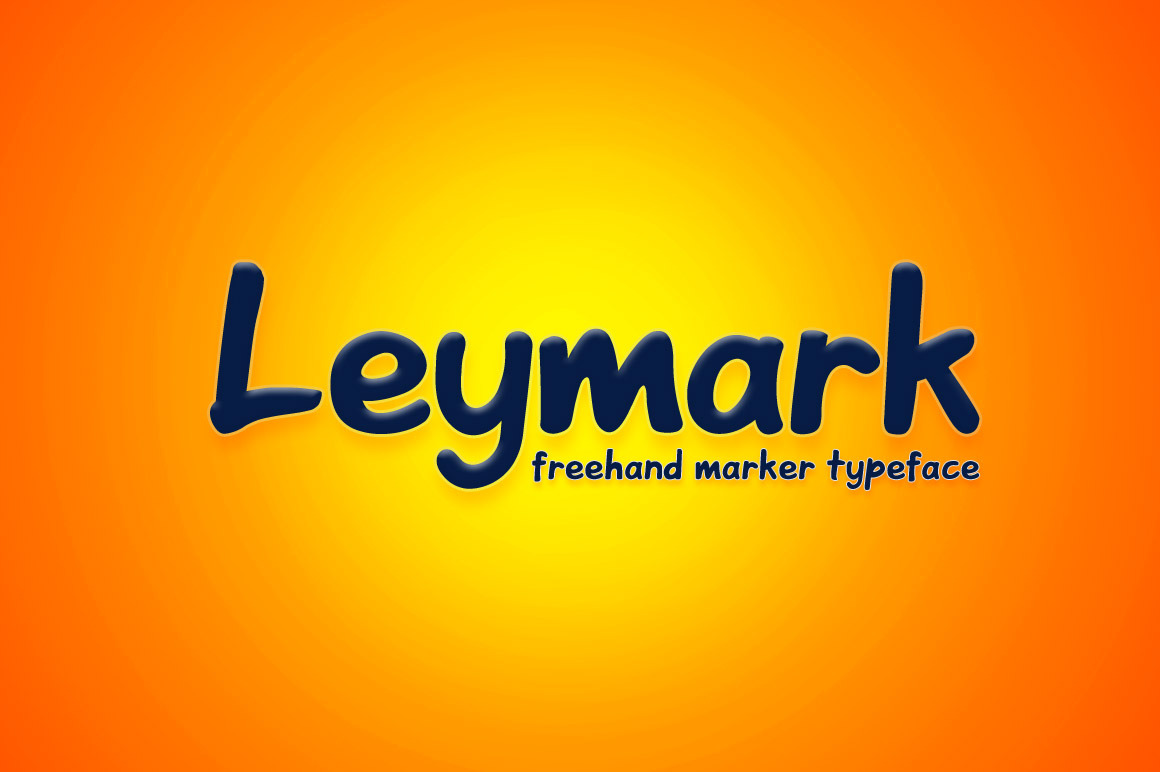
Leymark Casual Font
Leymark is a typeface that inspired from handwritten marker style. Old-skool classic marker on your notebook now can be used in your desktop screen. Suitable for any graphic design needs, such as logo, apparel design, print ads or anything. Available in uppercase and lowercase letters.